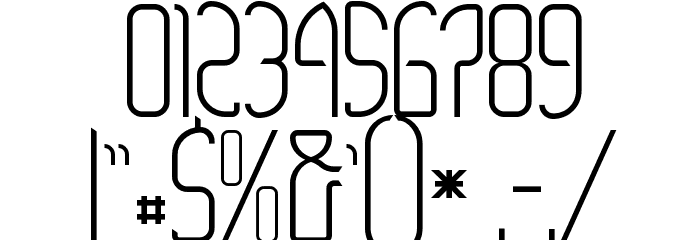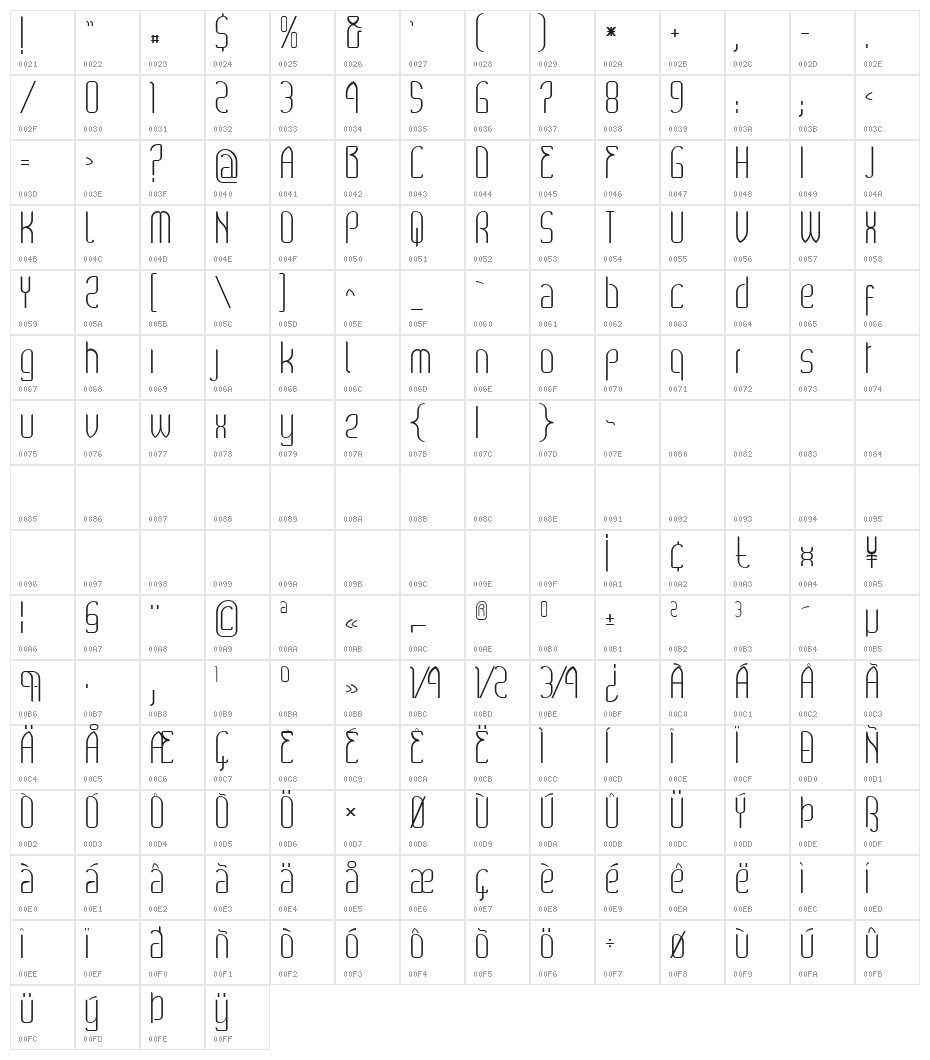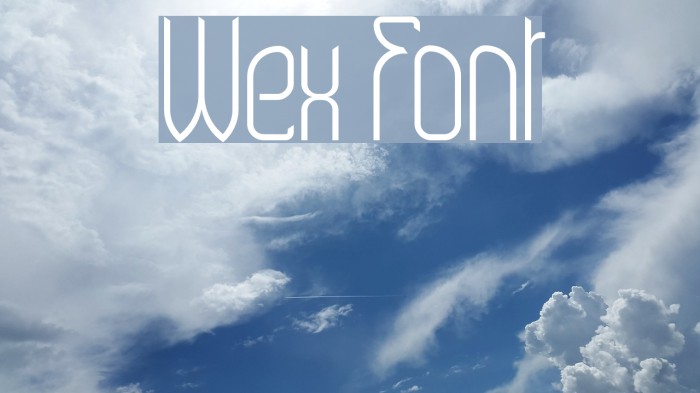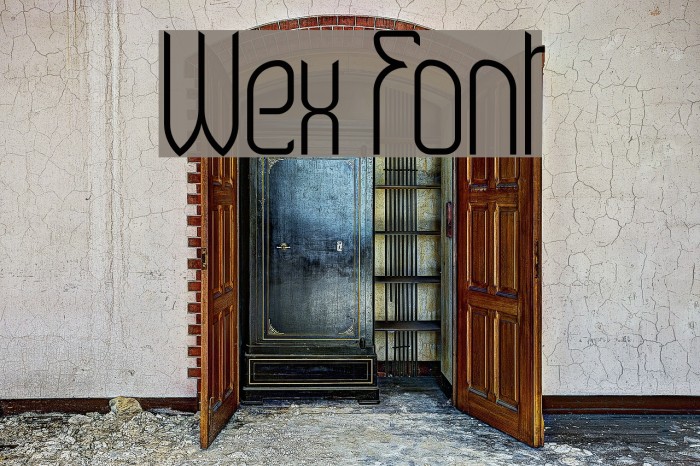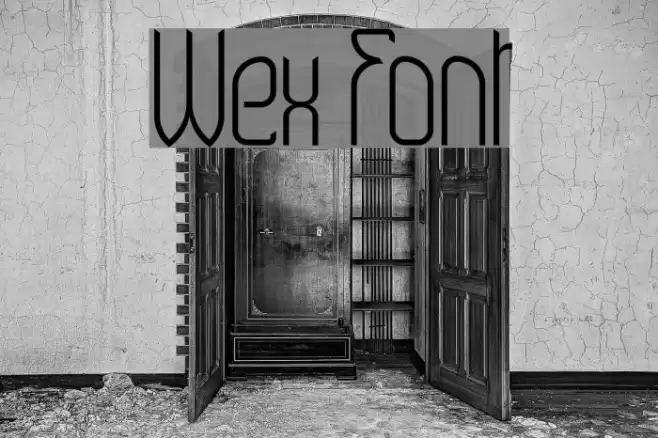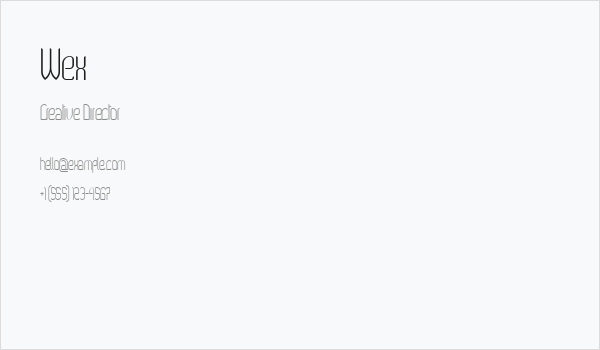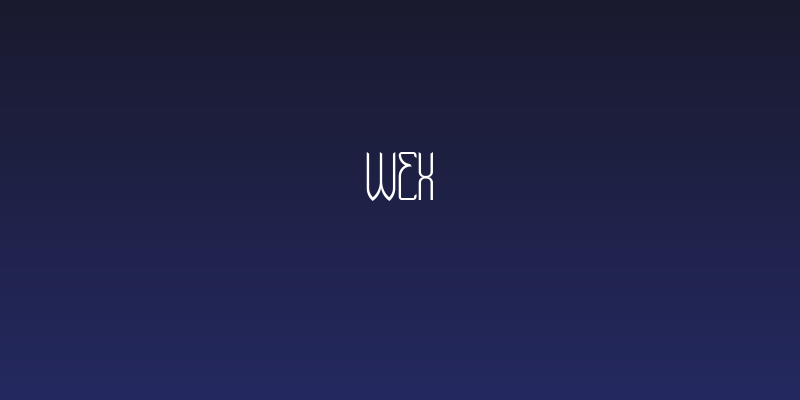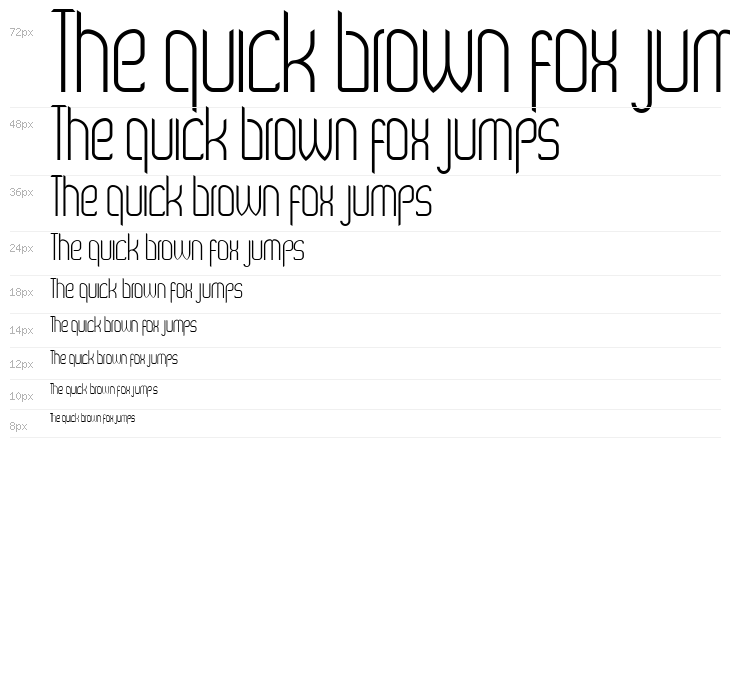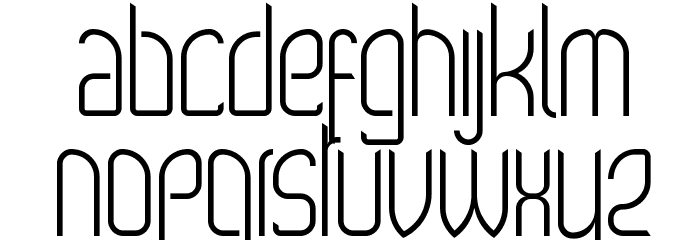
Wex Font
Wex Description
This font features a modern, geometric design with elongated, narrow characters. The uppercase and lowercase letters maintain a consistent height, creating a uniform appearance. The strokes are thin and uniform, contributing to a sleek and contemporary look. The characters have a distinct, rounded edge, which softens the overall aesthetic. The numerals and special characters follow the same design principles, ensuring cohesion across all elements. This font's unique style makes it suitable for creative and artistic projects, where a modern and stylish typeface is desired.